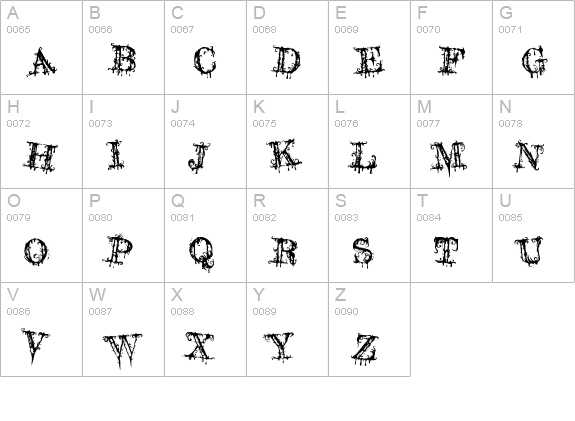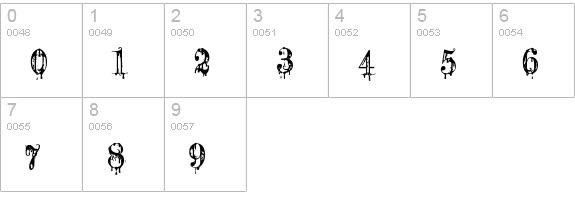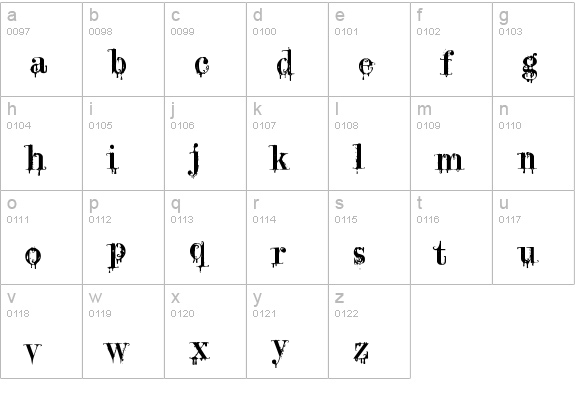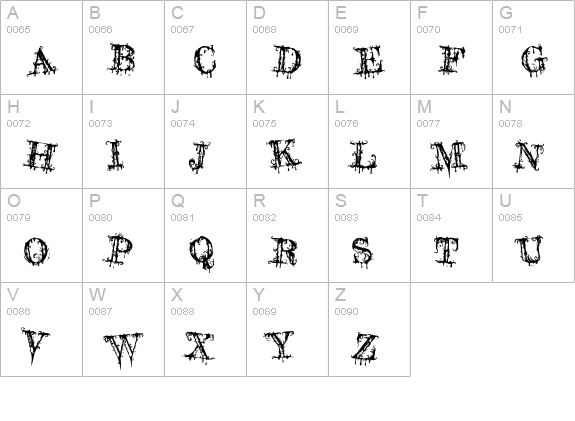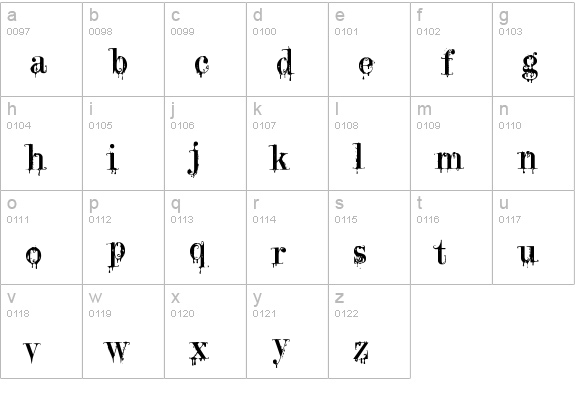
A Lolita Scorned Font Details
Introducing A Lolita Scorned, a captivating and enchanting font that brings a touch of rebellious elegance to your designs. With its distinct and seductive curves, this font embodies the essence of a scorned Lolita, exuding an air of sophistication and mystery. A Lolita Scorned is a typeface that effortlessly combines classic beauty with a hint of defiance. Its slender and graceful letterforms are adorned with delicate serifs, adding a touch of refinement to any project. Whether used for logos, headlines, or body text, this font commands attention and leaves a lasting impression. What sets A Lolita Scorned apart is its unique ability to convey both vulnerability and strength, captivating the reader with its subtle sensuality. It is a font that tells a story, inviting the viewer to delve deeper into the narrative it weaves. Its versatility allows it to seamlessly adapt to a wide range of design styles, from romantic and whimsical to bold and edgy. Best of all, A Lolita Scorned is freely available to download at FontsMarket.com. This means that you can effortlessly incorporate this captivating font into your projects without any restrictions. Whether you are a professional designer or a creative enthusiast, this font opens up a world of possibilities, allowing you to explore your creativity without limitations. So why wait? Unleash your inner Lolita and download A Lolita Scorned today. Discover the power of this font to turn heads, stir emotions, and leave a lasting impression on your audience. With its elegant curves and timeless allure, A Lolita Scorned is the perfect choice for those seeking to make a bold statement and stand out from the crowd.